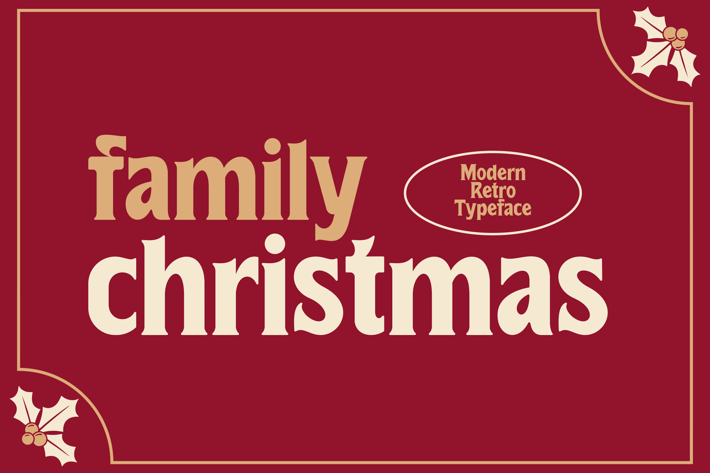
Family Christmas - Modern Retro Typeface
Introducing our new product Family Christmas Font - Modern Retro Typeface
Family Christmas Font- Modern Font is a bold and authentic display font. The font is suitable for any branding project like logo,
t-shirt printing, esport, and many more. outstanding in a wide range of contexts.
Family Christmas Uppercase
Family Christmas Lowercase